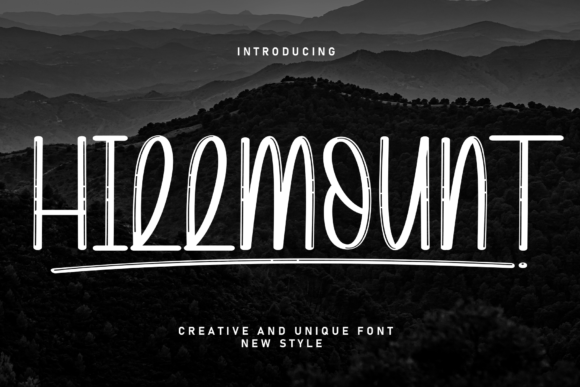
Step into the world of enchantment, where Hillmount Font reigns supreme, a script font crafted to sweep you off your feet. Its delicate curves and playful characters are like a breath of fresh air, infusing your designs with an aura of charm and elegance.
With Hillmount Font adorning your creations, every letter becomes a graceful dance, a visual sonnet that captivates the senses. Let your words take center stage, enveloped in the warmth and charm of this enchanting font.
Whether it's a heartfelt wedding invitation, a whimsical birthday card, or a captivating social media post, Hillmount Font weaves a spell of magic, transforming the ordinary into the extraordinary. Its versatility knows no bounds, allowing you to effortlessly elevate your designs to new heights.
Visualize your wedding photos, adorned with the enchanting calligraphy of Hillmount Font. Each stroke of the pen becomes a testament to your love story, forever etched in the annals of time.
Immerse yourself in the world of Hillmount Font, where creativity flourishes and imagination runs wild. Let your designs blossom with newfound beauty, as this font weaves its magic, leaving an imprint of elegance and sophistication.